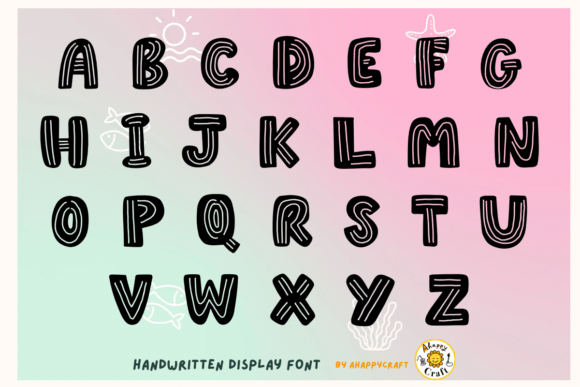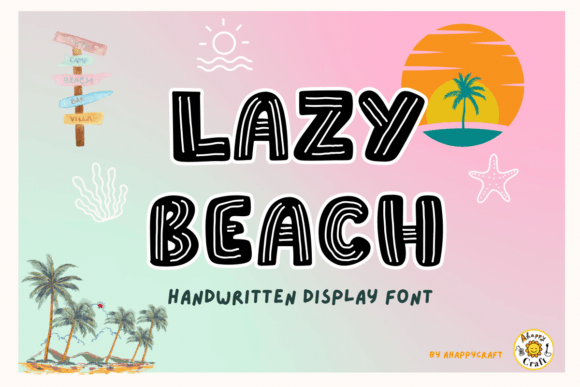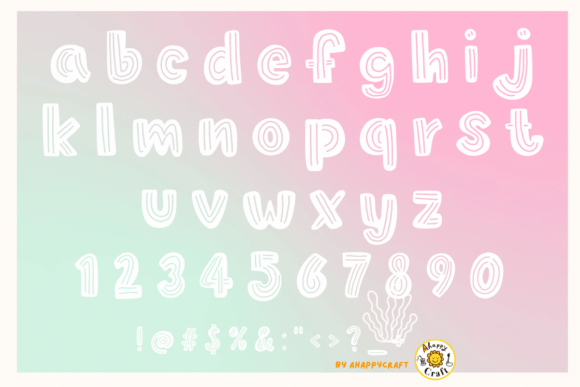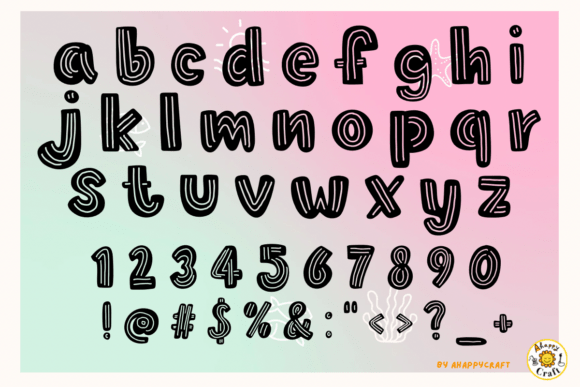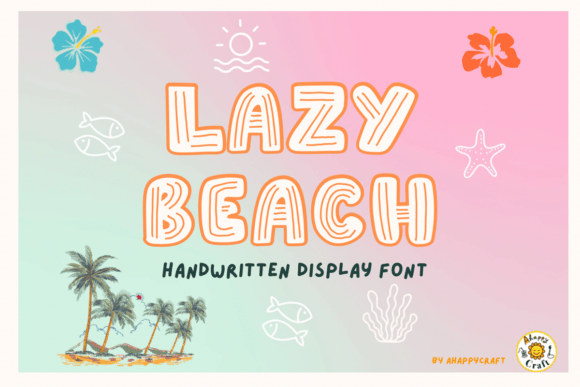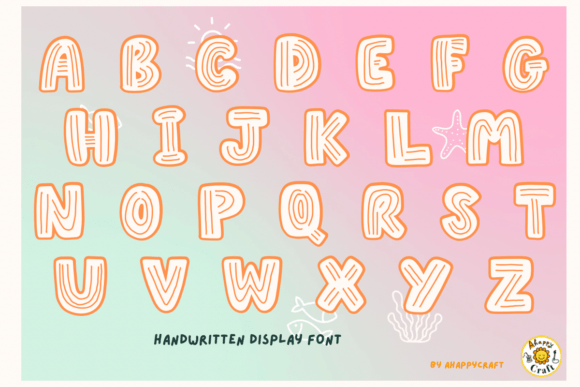
Introduction to Lazy Beach Font
Introducing Lazy Beach, a cheerful display font rendered in a charming doodle style.
This exuberantly bold typeface reimagines leisurely beach scribbles and transforms them into playful and whimsical characters Its unmistakable hand drawn qualities channel creativity and uniqueness, creating a visual feast thatโs instantly appealing.
Key Features of Lazy Beach Font